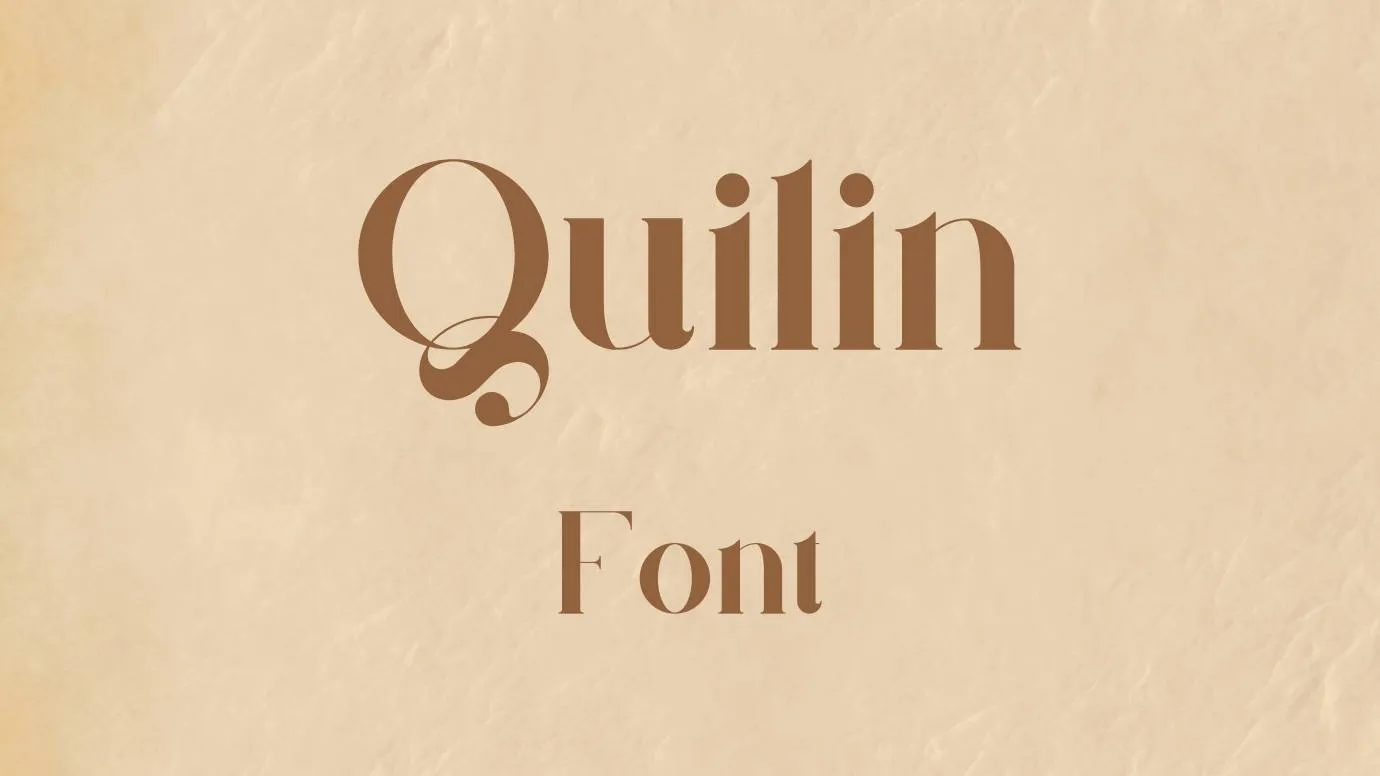
Quilin Font Family is a unique serif typeface that was designed by VPcreativeshop. This font family has bold and thick characters that increase the uniqueness of your design projects. It comes with uppercase and lowercase letters including some special characters.
This typeface has multiple features that you can apply for personal text design purposes. It has stylistic alternates and outstanding glyphs along with 1024 units per em.